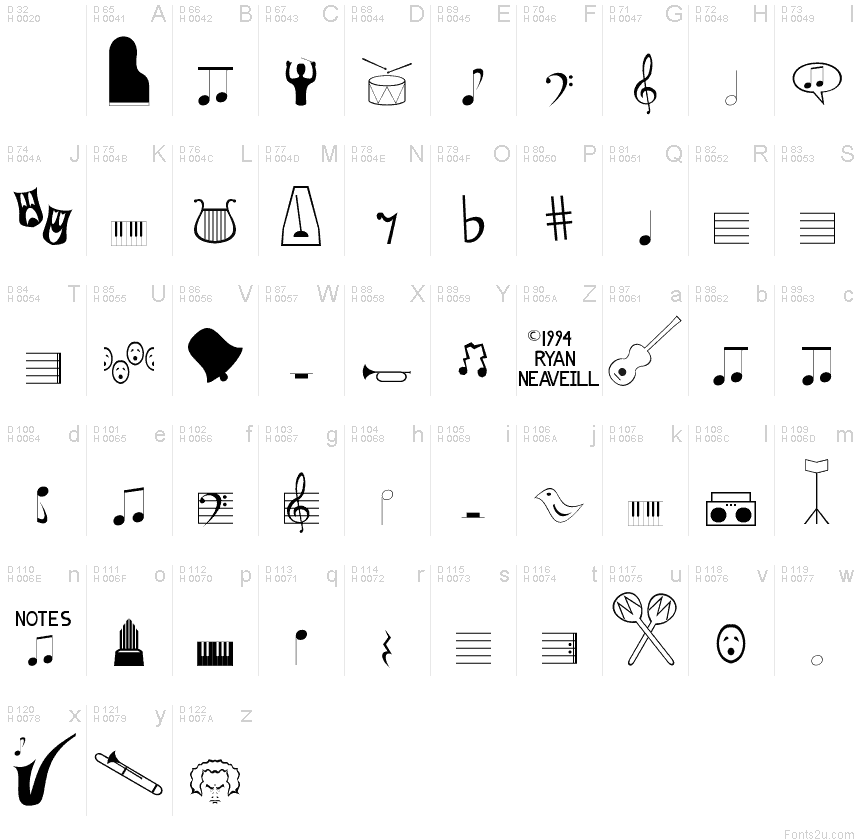
Music Fun
Music Fun is a free music-themed dingbat font with simple notation marks, note shapes, staff lines, rests, and a few related music symbols. The set feels orderly and graphic, with each icon drawn in a plain, uncluttered style that keeps the theme focused on musical notation.
This free font works well for concert flyers, choir programs, music class worksheets, band logos, playlist covers, and decorative borders where a small music accent is needed. Music Fun fits those uses because the symbols are clear, compact, and easy to pair with event titles, labels, and section dividers without competing with the main layout.